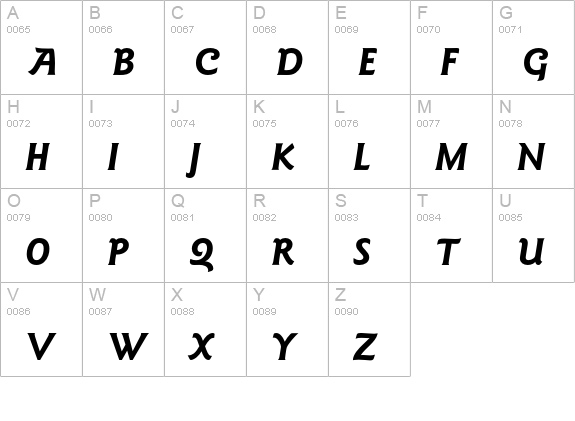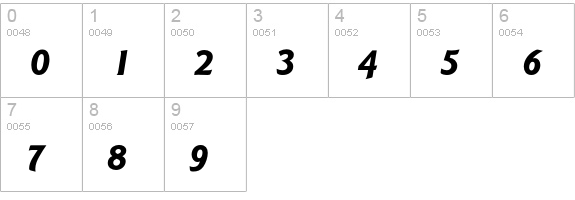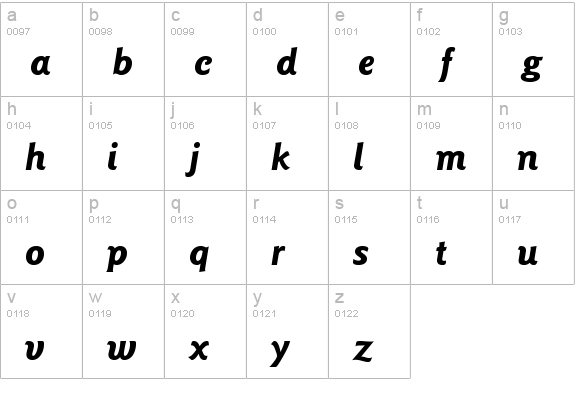
GoudySansEF-BoldItalic is a striking and versatile typeface that exudes elegance and sophistication. With its bold yet graceful design, this font is perfect for adding a touch of modern flair to any project. The italicized style adds a dynamic and engaging element to the text, making it ideal for headlines, titles, and branding materials. What sets GoudySansEF-BoldItalic apart is not just its visual appeal, but also the fact that it is available for free download at FontsMarket.com. This allows designers, creatives, and enthusiasts alike to access this premium font without any cost, making it a valuable addition to any font library. Whether you're working on a print design, website, or marketing collateral, GoudySansEF-BoldItalic is sure to make a lasting impression with its bold and stylish appearance.